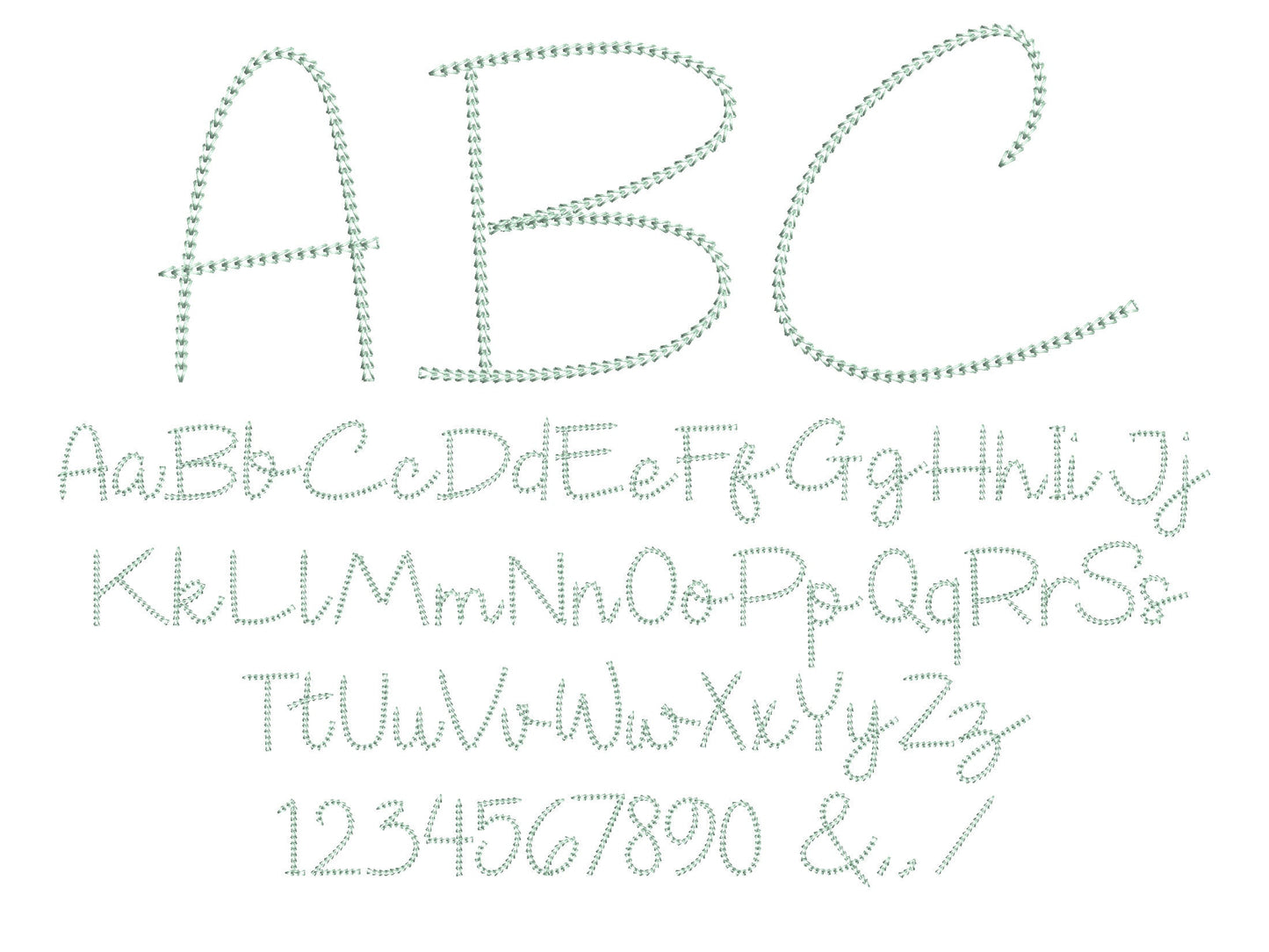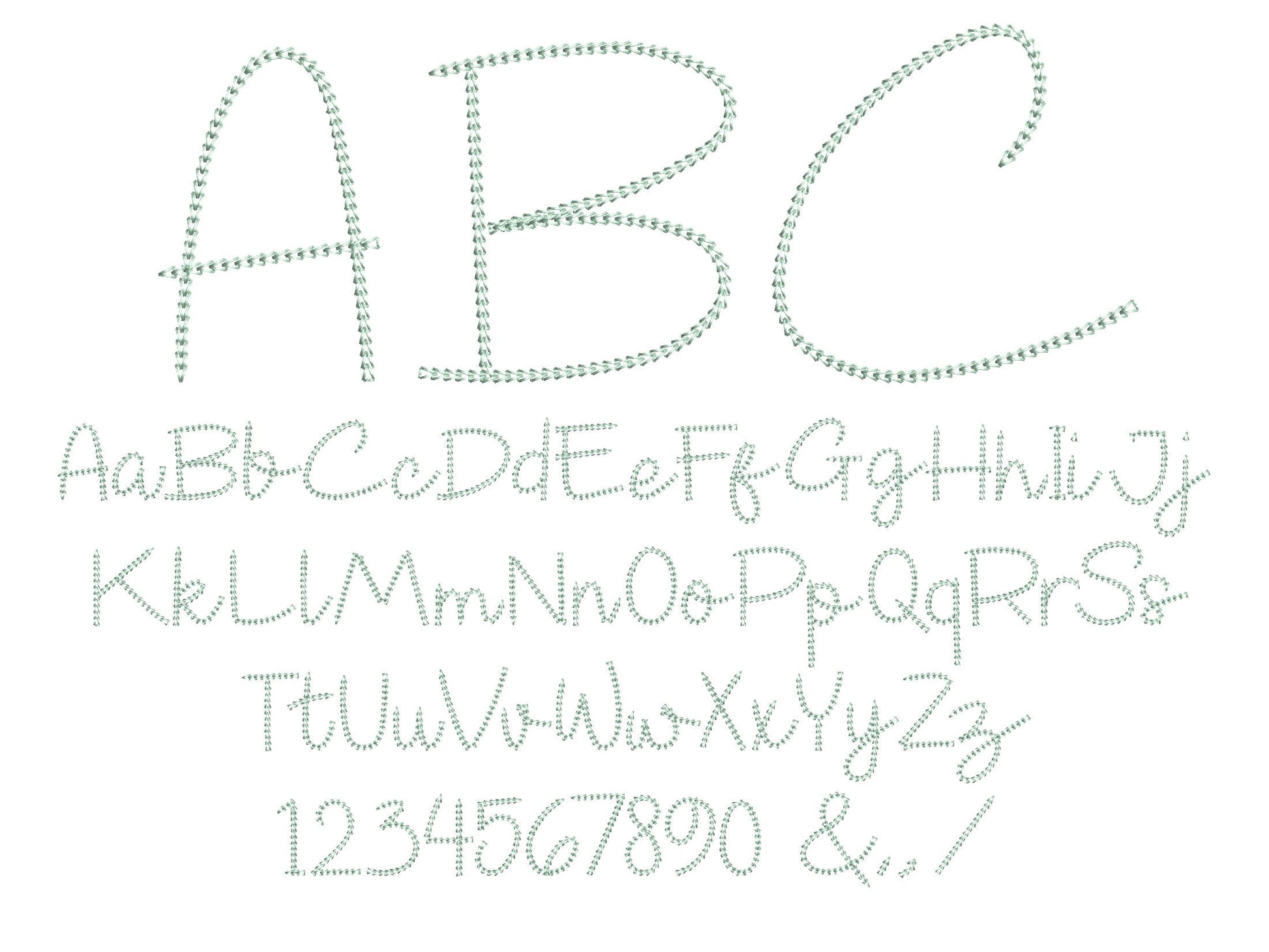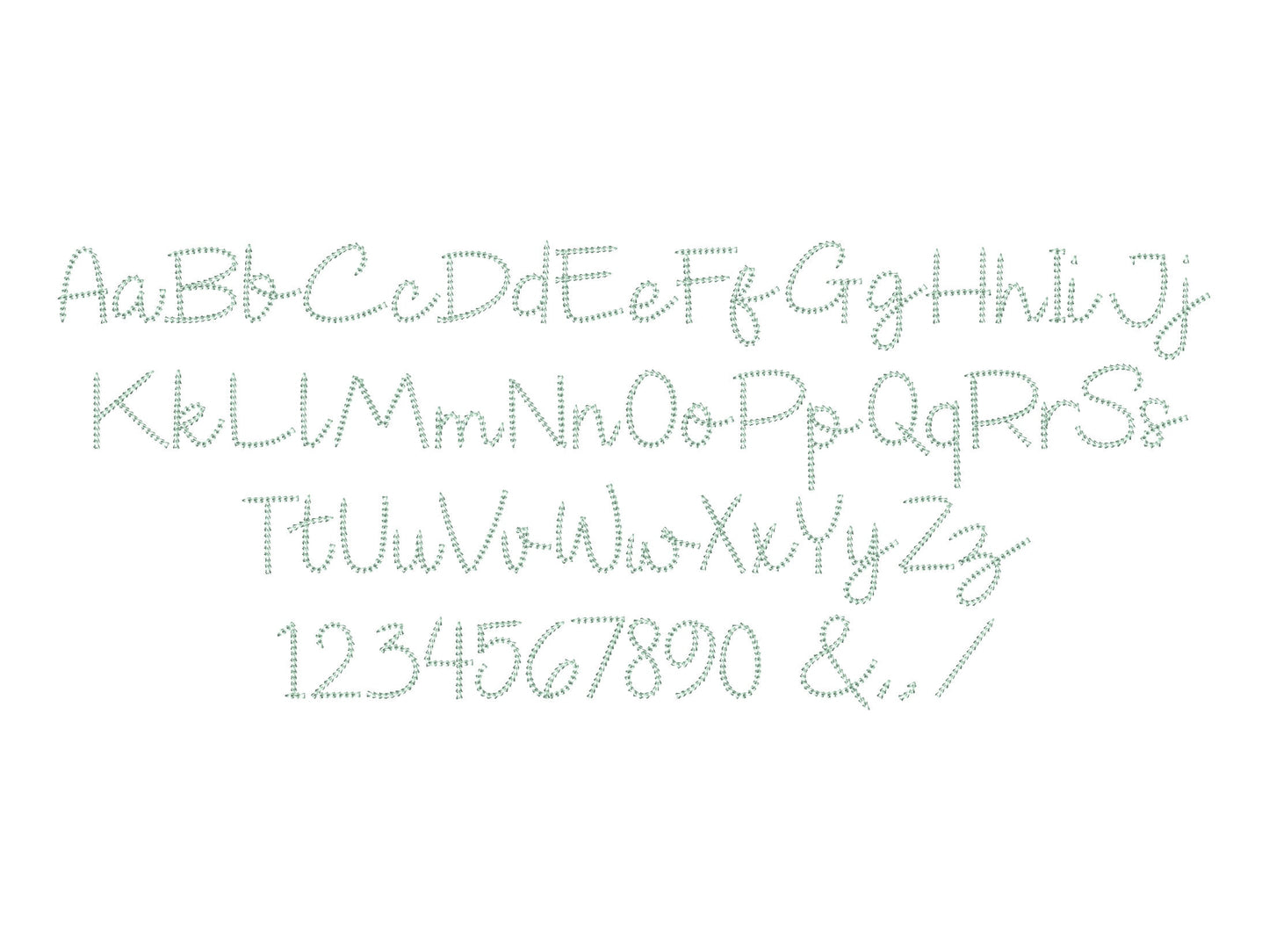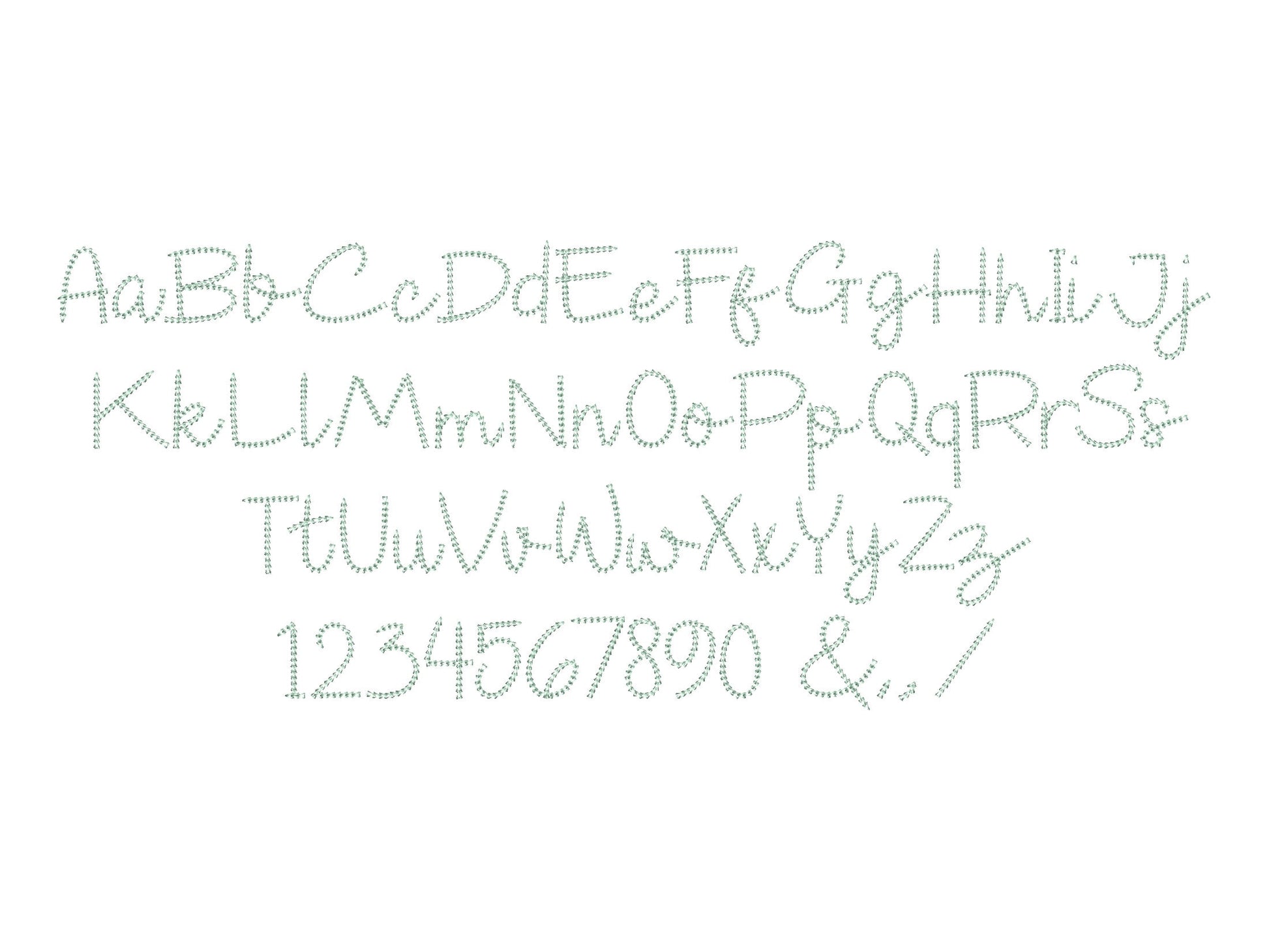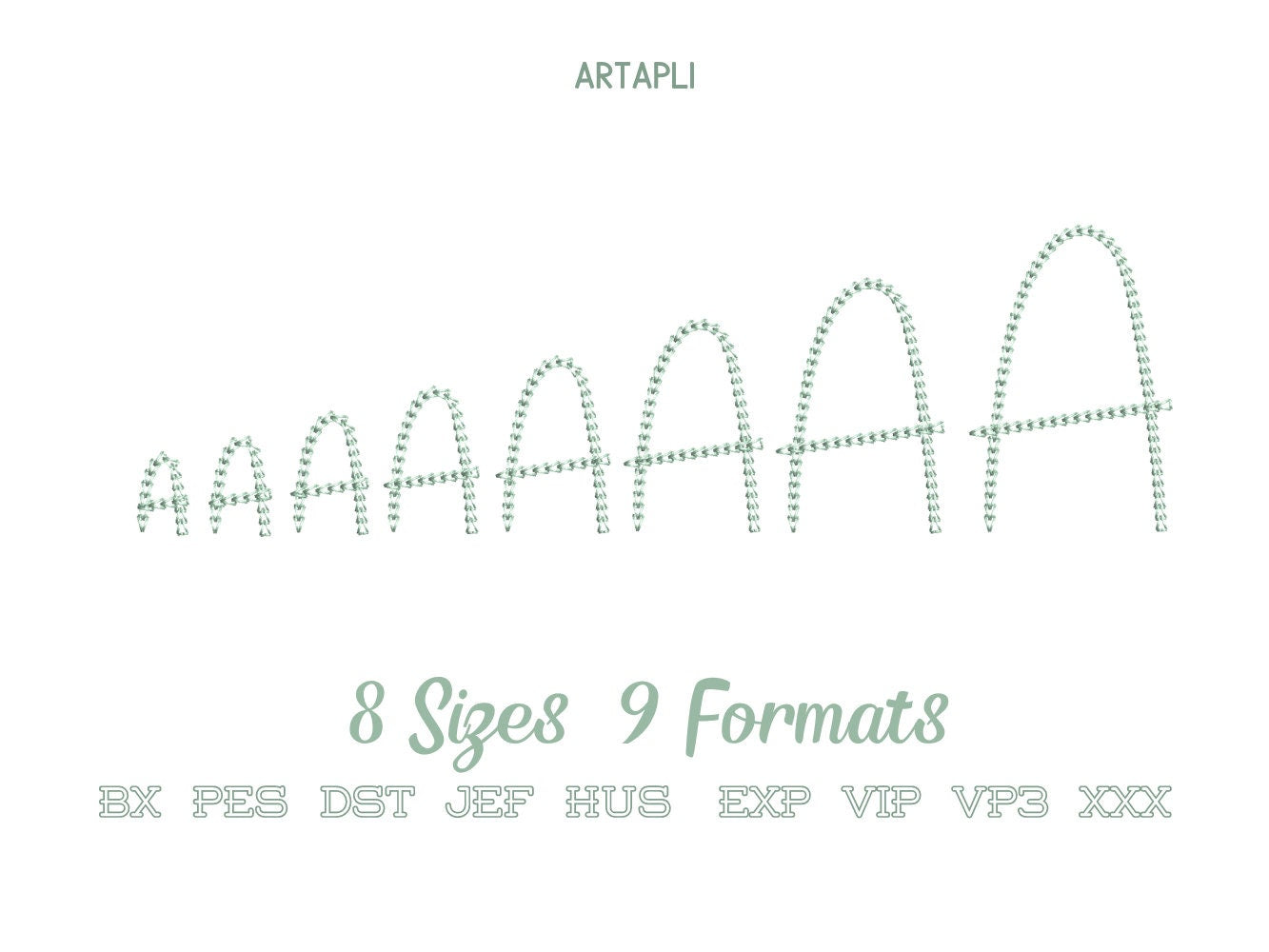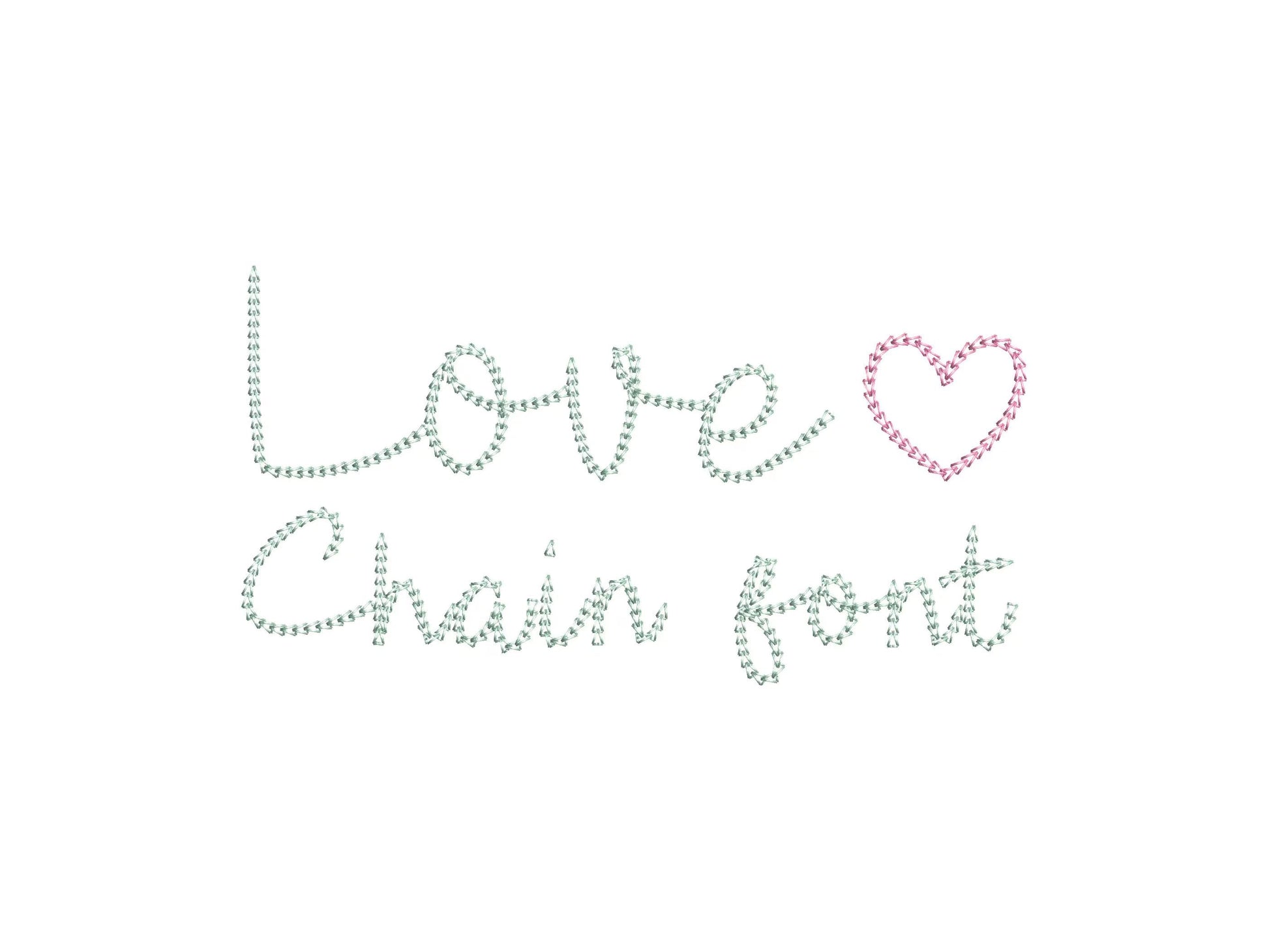
Or click to open the linkA quick light stitch chain font in tiny sizes. Cute for kids' names, small sayings, sleeves and little gifts.
Uppercase and lowercase letters, numbers 0 to 9 and punctuation, in eight sizes: 0.6, 0.8, 1, 1.2, 1.4, 1.7, 2 and 2.5 inches. Light chain stitching keeps small letters soft and fast to stitch.